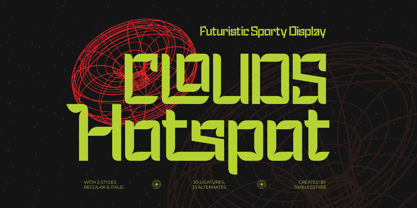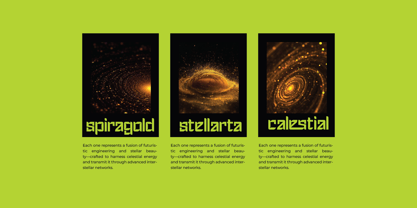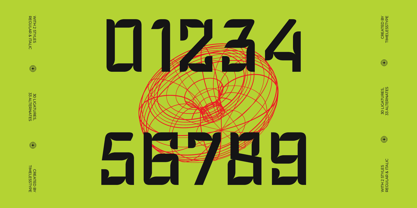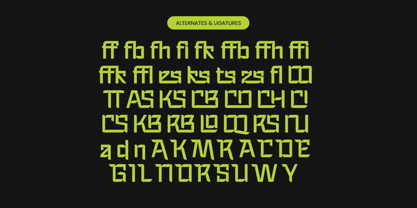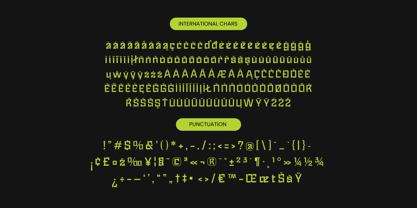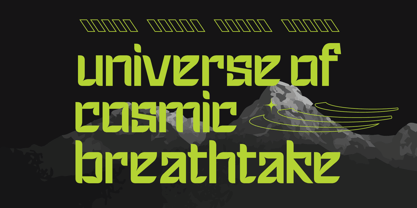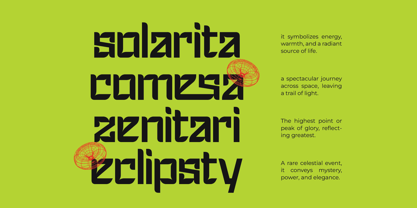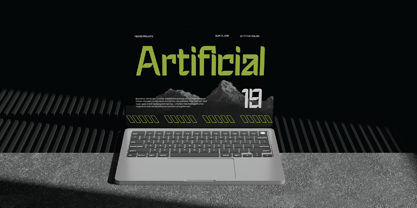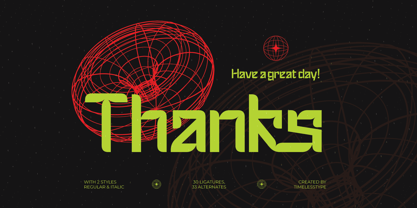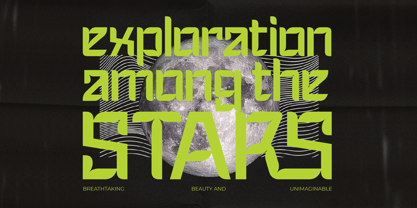
Clouds Hotspot
by Timelesstype Studio
The Clouds Hotspot Font Family was designed by Heru Utama Putra and published by Timelesstype Studio. Clouds Hotspot contains 2 styles and family package options.
Clouds Hotspot - Futuristic Sporty Display, Clouds Hotspot is a futuristic sporty display font with bold geometric construction and sharp dynamic forms. Featuring 30 ligatures and 33 alternates in both regular and italic styles, this typeface is designed for modern technology, gaming, and sports branding projects. Its sleek edges and digital-inspired design make it ideal for logos, posters, UI titles, and futuristic visual identities — perfect for designs that demand innovation and speed.